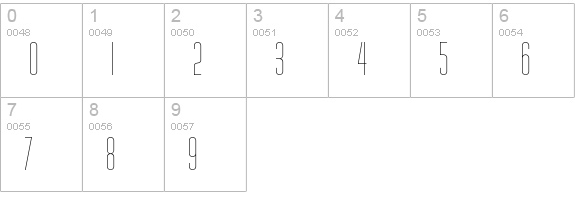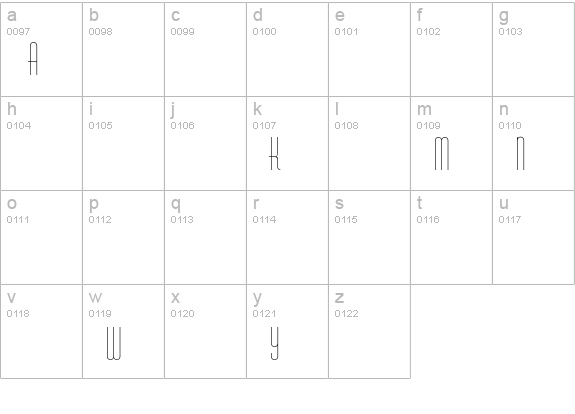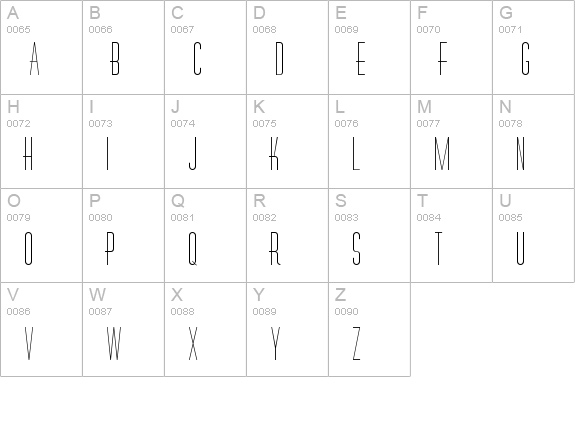
RhyoliteVertica Font Details
Introducing RhyoliteVertica, a stunning font that marries elegance and versatility seamlessly. This typeface exudes a sense of sophistication and refinement, making it the perfect choice for any design project that craves a touch of class. RhyoliteVertica boasts a unique blend of sharp angles and smooth curves, resulting in a visually striking and balanced aesthetic. Each character is meticulously crafted, with attention to detail that is sure to captivate even the most discerning eye. The precise spacing and well-balanced proportions further enhance the font's overall appeal, ensuring legibility and readability across various mediums. This remarkable font offers a wide range of potential applications, from brand identities and logos to editorial designs and web graphics. RhyoliteVertica effortlessly adapts to any context, adding a touch of sophistication and elegance to your creations. The best part? RhyoliteVertica is freely available to download at FontsMarket.com. Yes, you read that right - this exceptional font can be yours at absolutely no cost. Say goodbye to the hassle of expensive licensing fees and hello to the freedom of creativity. No matter if you're a professional designer or a creative enthusiast, RhyoliteVertica empowers you to bring your vision to life without any limitations. With its freely available download, you can explore endless design possibilities, experiment with various styles, and create stunning visuals that leave a lasting impression. So, why wait? Discover the beauty and versatility of RhyoliteVertica today. Download it for free at FontsMarket.com and unlock a world of design possibilities that will elevate your projects to new heights.